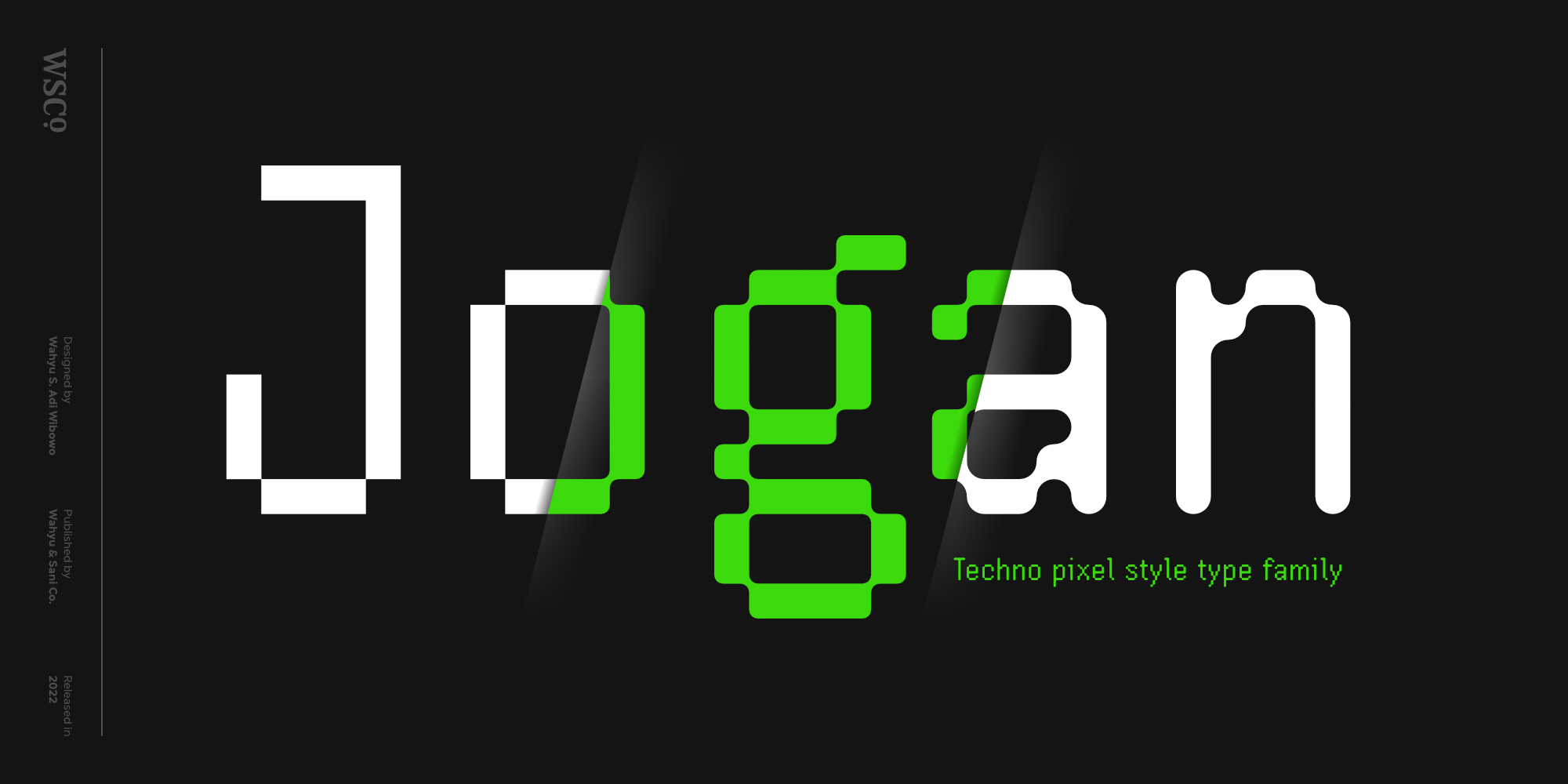
Jogan Font is perfect for zen meditation centers, yoga studios, spiritual wellness retreats, mindfulness apps, Japanese cultural centers, Buddhist temples, holistic healing practices, eastern philosophy schools, traditional tea ceremonies, and authentic spiritual enlightenment designs.
Jogan Font is exciting because it embodies inner peace and spiritual wisdom through balanced letterforms that capture the serene harmony of zen philosophy and the profound tranquility of meditative practice, making it perfect for brands celebrating spiritual awakening and mindful living.
The Jogan Font family includes regular weight with zen-inspired alternates, spiritual ornaments, and meditative decorative elements, providing designers with peaceful tools for creating typography that breathes with authentic spiritual presence and enlightened consciousness.
When your project needs spiritual authenticity and zen tranquility, Jogan Font Free Download delivers the perfect typographic meditation for mindful communications. This serene display typeface combines ancient wisdom with contemporary functionality, ensuring your brands resonate with audiences seeking genuine spiritual experiences and mindful living practices. The balanced letterforms and zen-inspired styling make this font an essential choice for spiritual organizations, wellness centers, and any application where inner peace, spiritual growth, and mindful awareness are crucial for creating meaningful connections that celebrate the transformative power of meditation and the profound wisdom that comes from cultivating inner stillness and spiritual consciousness in our fast-paced modern world.